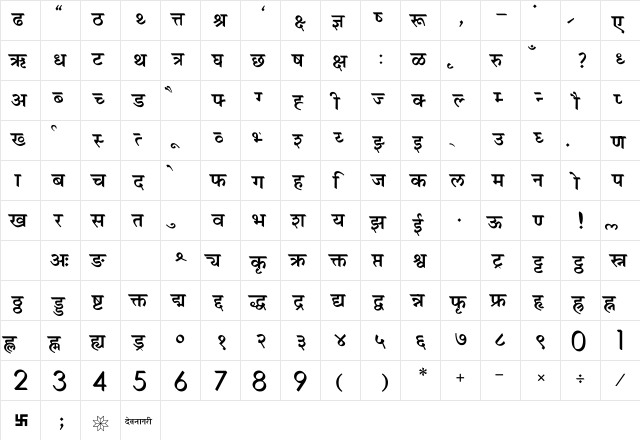
Marathi-lekhan Lekhan
Design Context for Marathi-lekhan Typeface
Marathi-lekhan offers clean, dependable letterforms without strong stylistic allegiance, making it a practical choice for designers who need flexibility.
Pro Tip: Use Marathi-lekhan in both headline and body roles to test its range before committing to a single application.